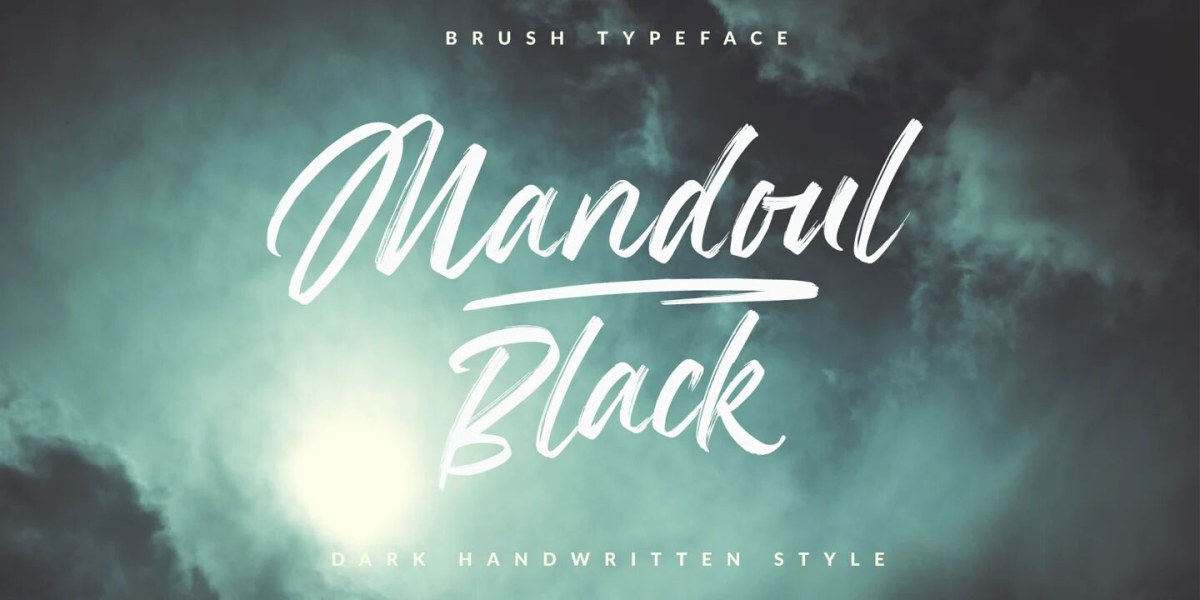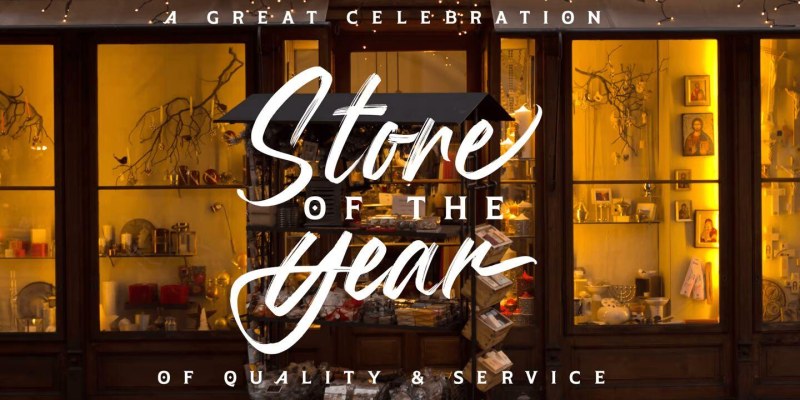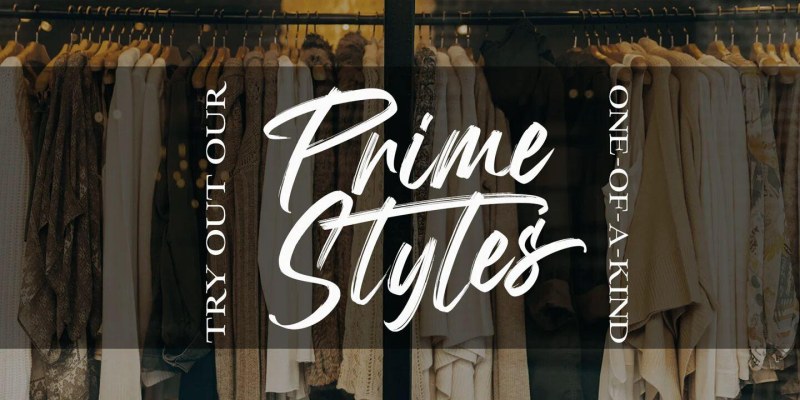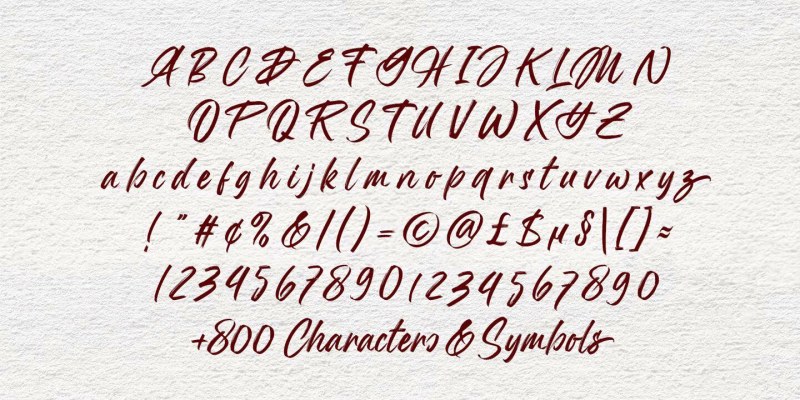
Mandoul Black Font
Mandoul Black is a cool, active calligraphy typeface bursting with energy. With extra attention to quick letterforms and sharp details, this brush typeface turns any graphic project into a strong and confident work. Its handwritten paintbrush strokes are created with real brush and paint, ensuring a genuine and truly artistic typographic design. It is provided as Regular and Italic.
Mandoul is built with advanced OpenType functionality and has a guaranteed top-notch quality, containing stylistic and contextual alternates, ligatures and more features; all to give you full control and customizability. It has extensive lingual support, covering all Latin-based languages, from North Europe to South Africa, from America to South-East Asia. It contains all characters and symbols you’ll ever need, including all punctuation and numbers.
Mandoul Black Font is a Font Family font that brings a professional and versatile look to your projects. Mandoul Black is a cool, active calligraphy typeface bursting with energy.